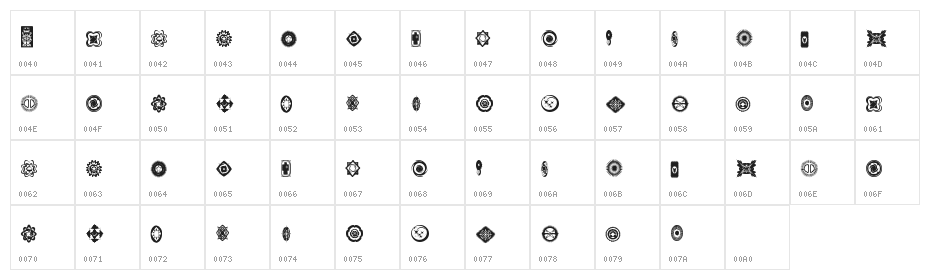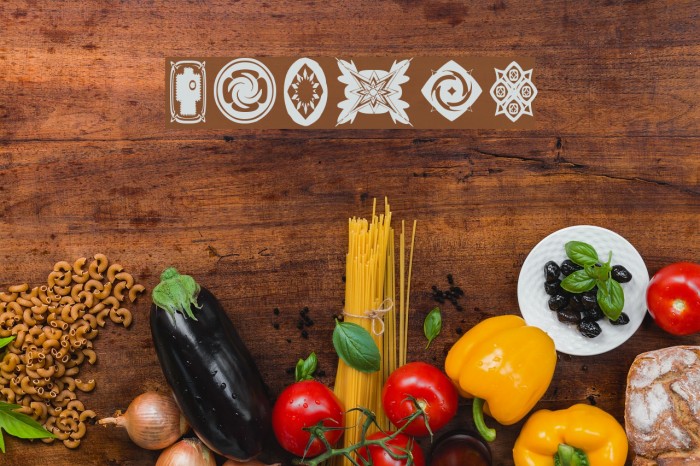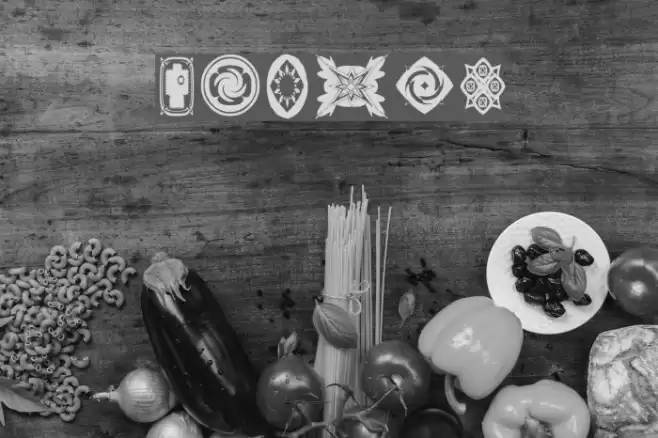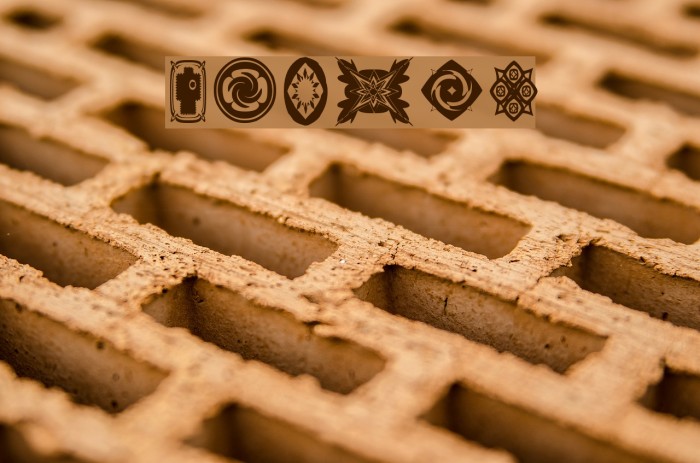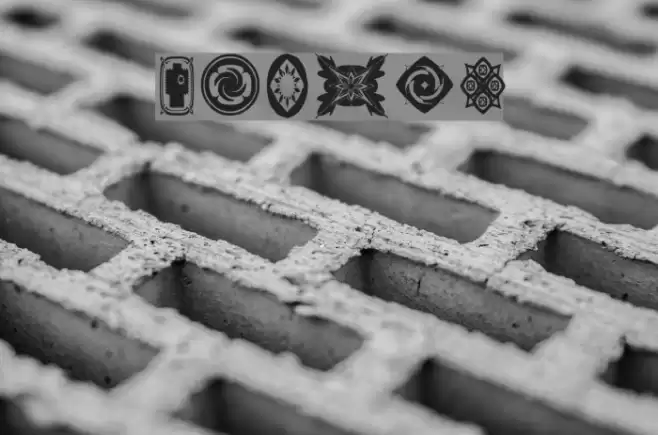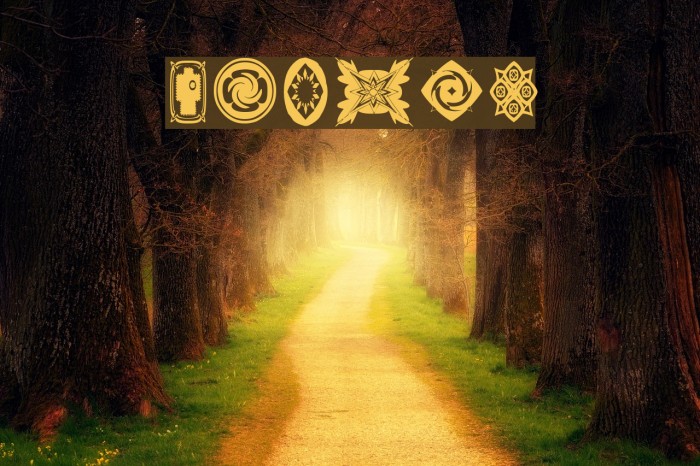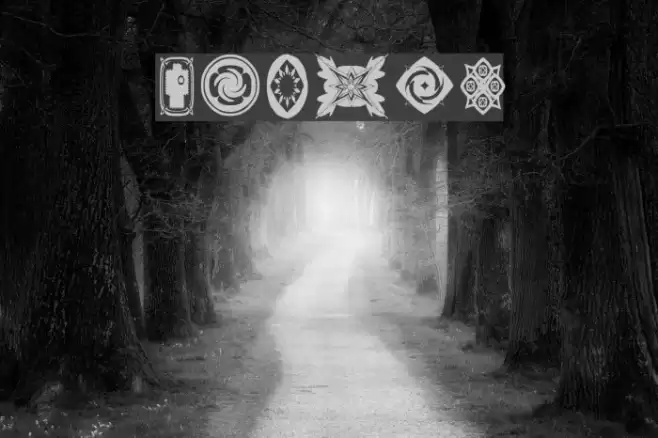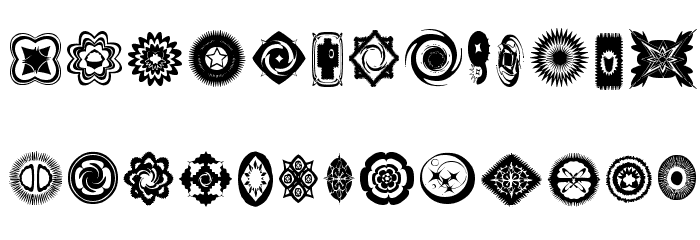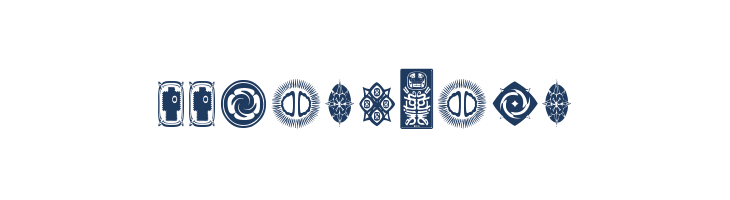
formes Font
formes Description
A decorative dingbat or symbol set featuring intricate, ornamental shapes and motifs, including floral, geometric, and tribal-inspired designs, all in bold black and white. Each character is represented by a unique, highly stylized icon rather than traditional alphanumeric glyphs.
| Overall Style | Decorative, Ornamental, Tribal |
| Use Case | Icons, Borders, Decorative accents |
| Proposed Projects | Branding, packaging, invitations, decorative borders, tattoo designs, posters, and digital art. |